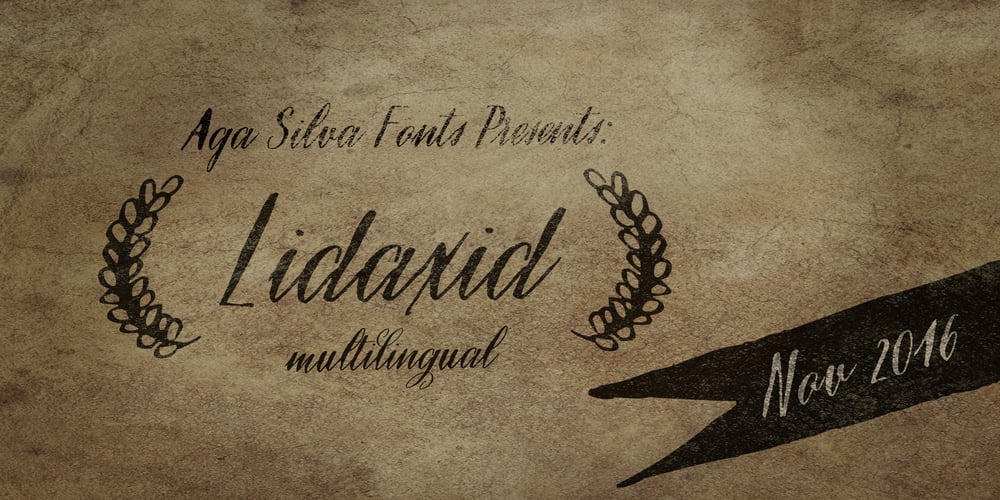
Lidaxid
Lidaxid font
Lidaxid Font Family was designed by published by Aga Silva. Lidaxid contains 3 styles and family package options. With this font, the true fun is ornaments, and there are tons of them. Design conveys either adventurous or eco friendly look, which coupled with many alternate characters adds up to uniqueness in your final design.